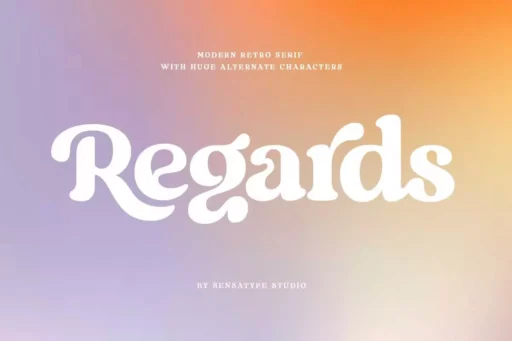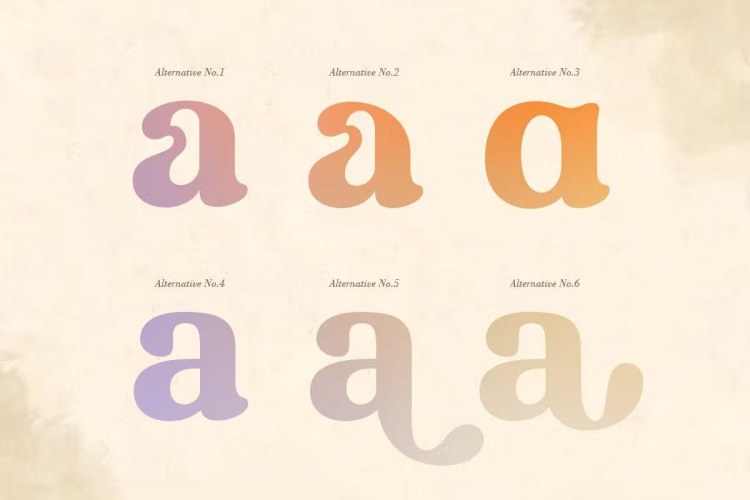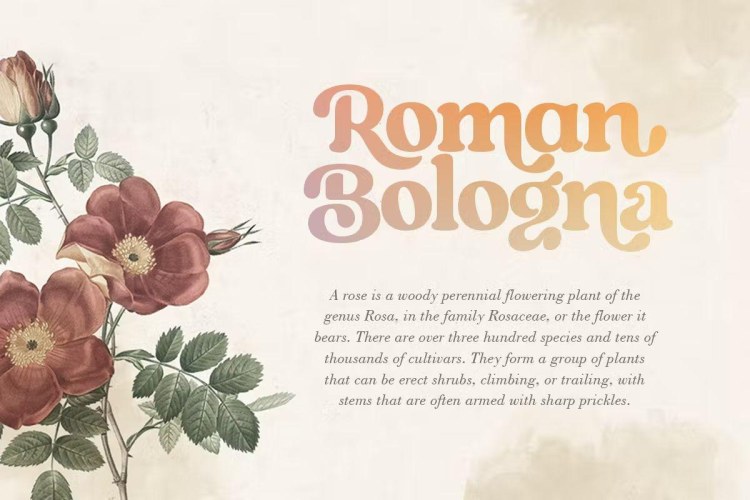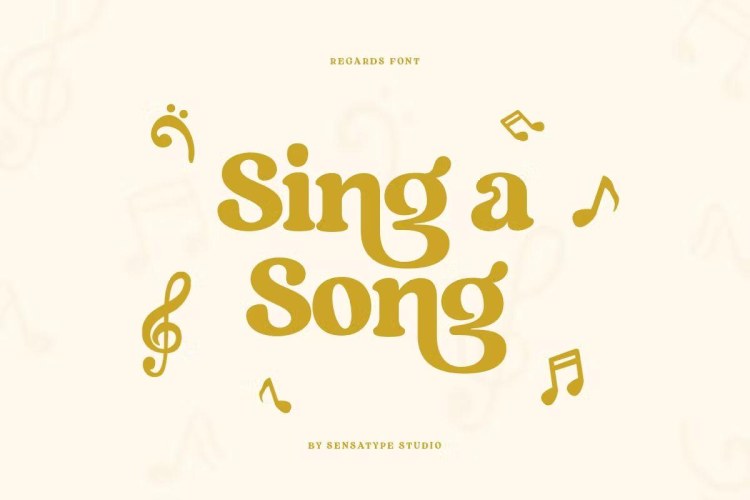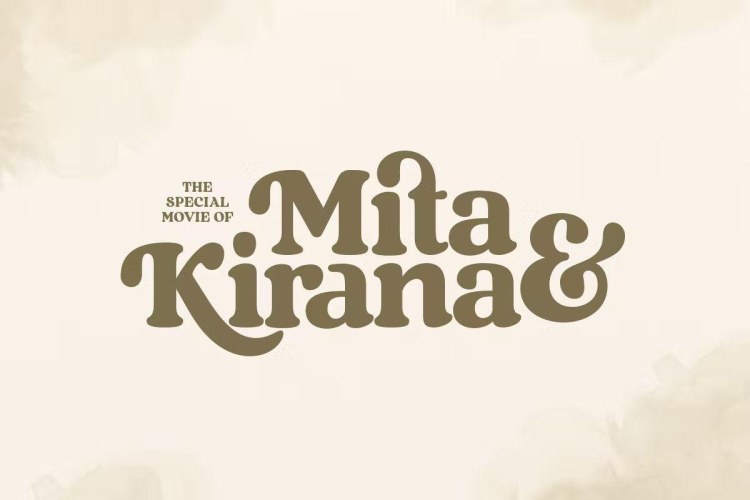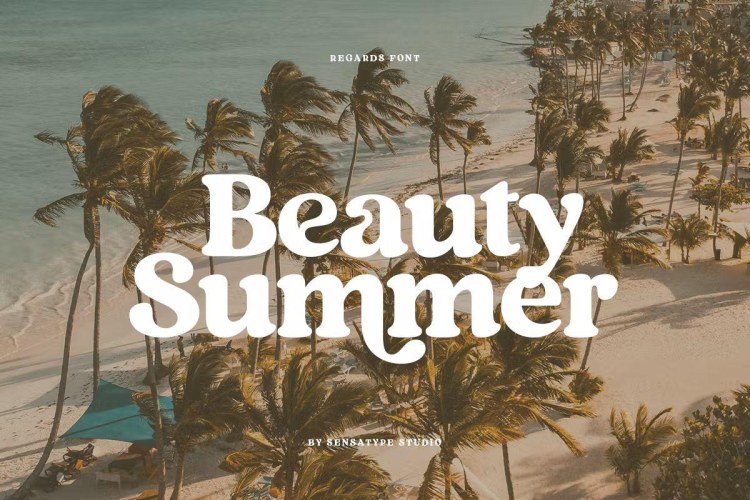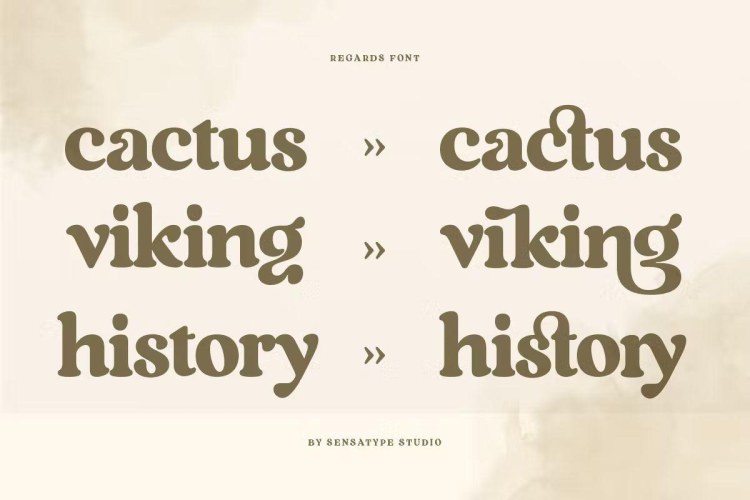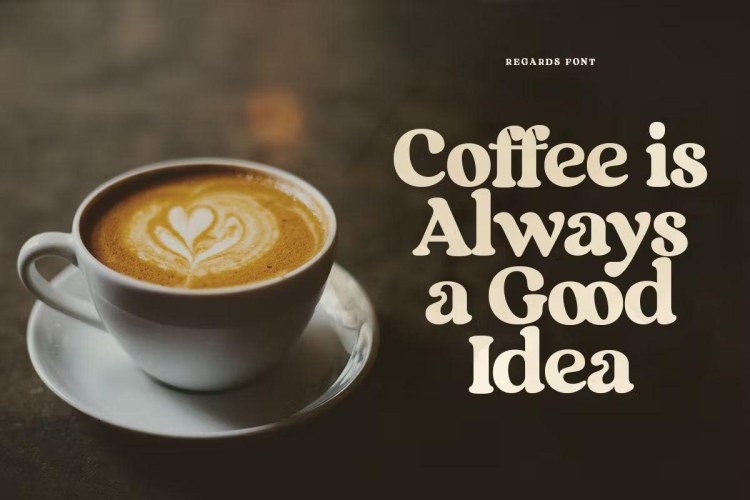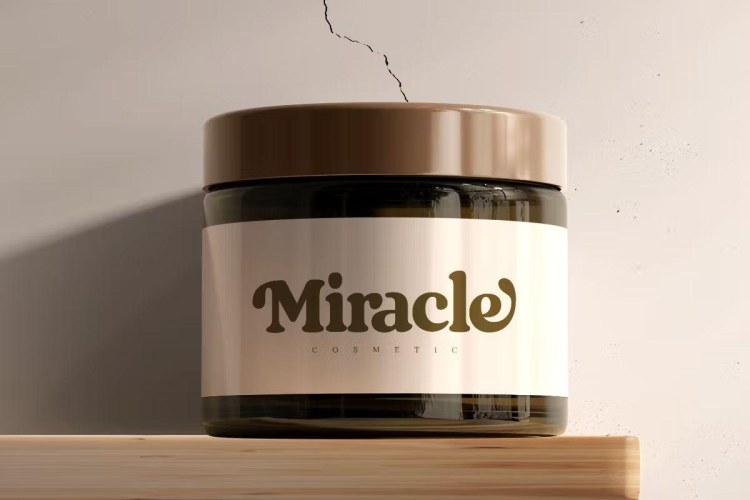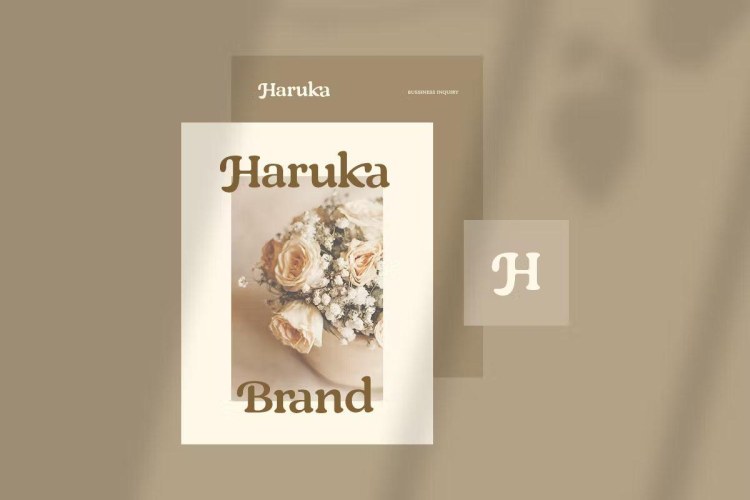
Regards Font
Regards font is a beautiful modern vintage retro serif font with huge alternate characters. It is an allusion to the chic and eternal beauty of the vintage era, but interpreted in a modern and relevant manner. This typeface is a Swiss army knife of fonts, so it is ideal for various purposes.
The Regards font has over one hundred alternates that open up a whole universe of typographic creativity. Each character’s doing has been nailed to perfection to reach the highest level of detailing and consistency. The alternates can be interchanged to achieve an unusual and individual appearance. The basic forms of the letter can be spectacular; fonts like this one only make a design more elegant than it actually is.
The moderate contrast of the font makes it suitable for both print and digital media. It is very attractive in logo designs and branding projects, making them special and unforgettable. Given the font’s peculiar features, it is perfect for wedding designs to which it contributes elegance and romance.
In social media posts and ads regards font boasts itself by giving a retro-modern aesthetic that is eye-catching. Being versatile, it is also widely used in product packaging and designs to add a smooth and old fashioned look or a direct and modern feeling, depending on the message you want to send.
The Regards font is also suitable for labels, photography watermarks, invitations, and stationery as well. The legibility is very high and this means that your message is always clear and readable in any medium.
In the end, the font Regards is more than a typeface. It is actually a device that enables designers to show their imagination and make their vision come true. Featuring a perfect mixture of old and new, it’s a font that will never go out of style. No matter you are in a branding job, creating social media posts or making wedding invitations, font Regards is an amazing choice as it will put elegance and sophistication to your work.
Regards Font is a Serif Fonts font that brings a professional and versatile look to your projects. Regards font is a beautiful modern vintage retro serif font with huge alternate characters.